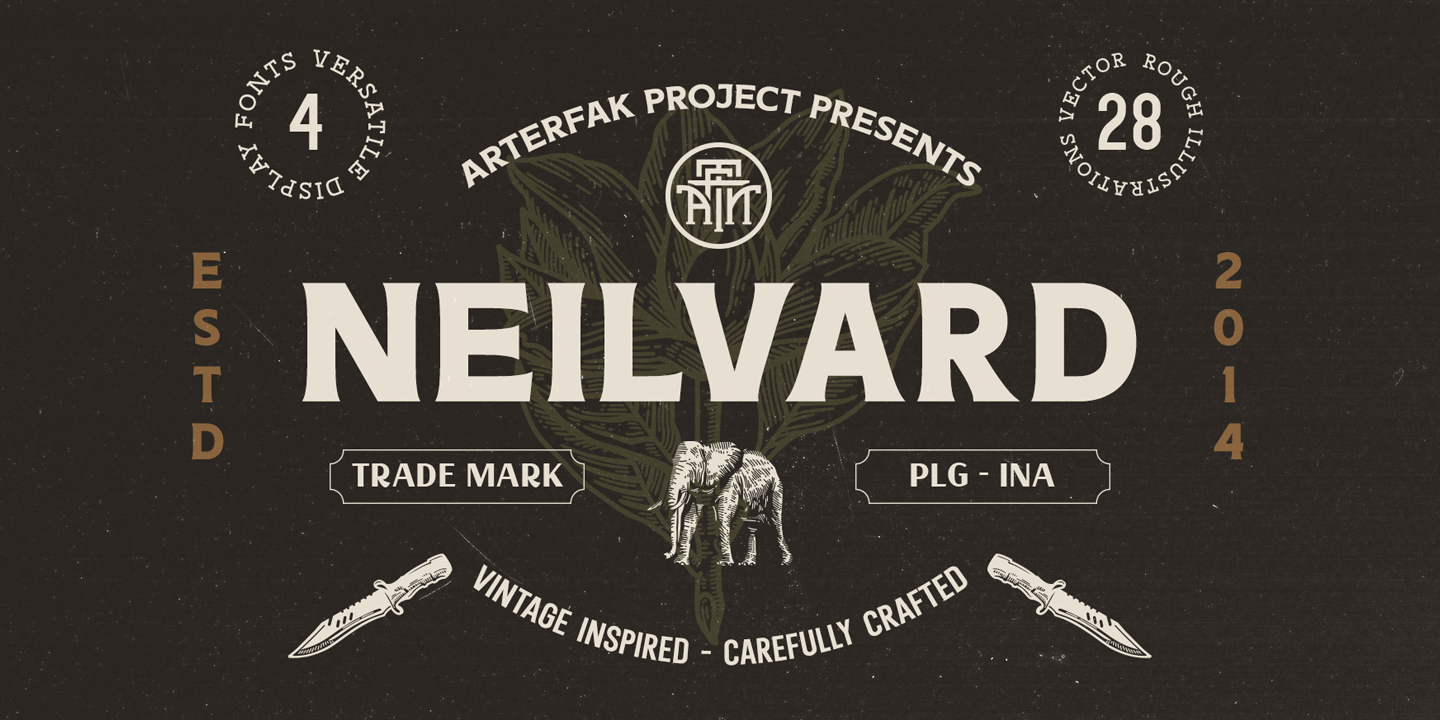
Neilvard Font is a strikingly modern and distinctive typeface, perfect for designs that aim to convey innovation, a sleek aesthetic, or a bold, almost architectural presence. Its often precise lines, unique geometric forms, and contemporary appeal make it an excellent choice for tech company branding, urban development projects, modern art exhibitions, and architectural firm portfolios. Imagine it gracing the logo of a cutting-edge startup, providing a sophisticated yet minimalist feel to high-end product packaging, or adding a crisp, uncluttered look to digital interfaces. This font is also superb for concept car advertisements, fashion editorials for avant-garde brands, and any project where clarity, structure, and a forward-thinking visual identity are key. It doesn't just display text; it builds a statement with modern precision and undeniable style.
What makes Neilvard Font so exciting is its remarkable ability to blend functional clarity with a unique, almost sculptural aesthetic. It possesses a distinctive character that feels both robust and refined, making it incredibly versatile for a wide range of applications, from prominent headlines to more subtle design elements. This unique combination allows designers to create visually compelling content that is both highly readable and effortlessly modern. It’s a font that speaks with a clean, confident voice, making it ideal for brands and content creators who want to convey reliability, innovation, and a sophisticated, no-fuss aesthetic. Its balanced proportions and strong design make it a go-to for any project aiming for a contemporary, professional look.
The Neilvard Font family typically offers a comprehensive range of weights and styles to provide extensive design flexibility and allow for nuanced typographic expressions. While the exact variations can differ based on the specific design, you can generally expect to find key members that support diverse layout needs, such as:
Neilvard Thin
Neilvard Light
Neilvard Regular
Neilvard Medium
Neilvard SemiBold
Neilvard Bold
Neilvard ExtraBold
Neilvard Black
Neilvard Italic (for most, if not all, weights)
Neilvard Condensed (if available, for space-saving applications)
These various weights and styles empower designers to create effective visual hierarchies, emphasize important information, and maintain a consistent, polished, and contemporary look throughout all digital and print assets. The opportunity to utilize Neilvard Font Free Download is an excellent way to experience its versatile elegance and modern appeal for your personal projects.